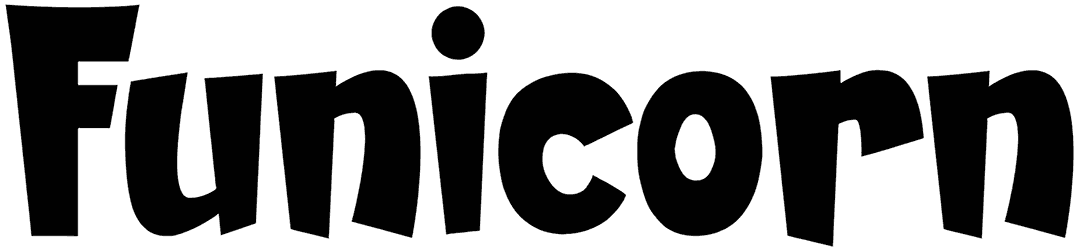
Funicorn Font
Let’s bring up your design with the happy and funny face of today’s gift, named Funicorn. This unicorn font has a childish hand lettering style and would be a cool promotion for a lot of designs, like stickers, posters, cartoons, storybooks, and whatnot.